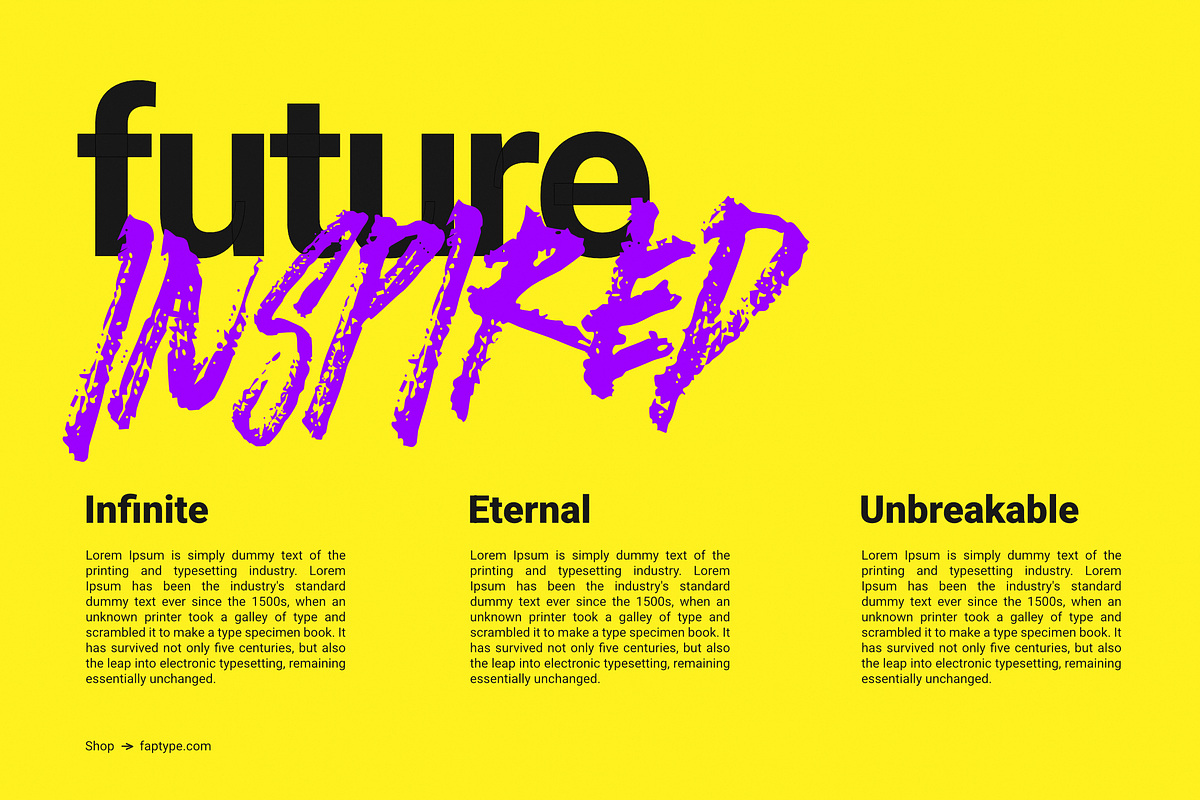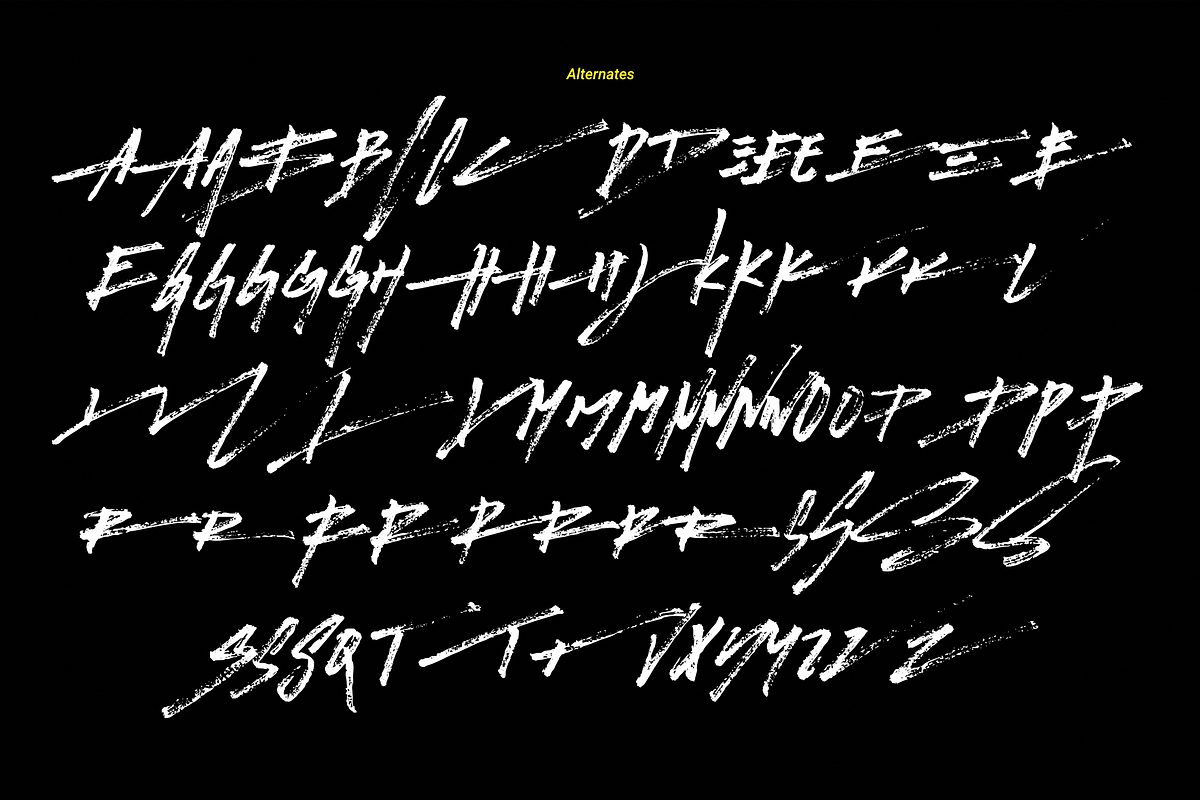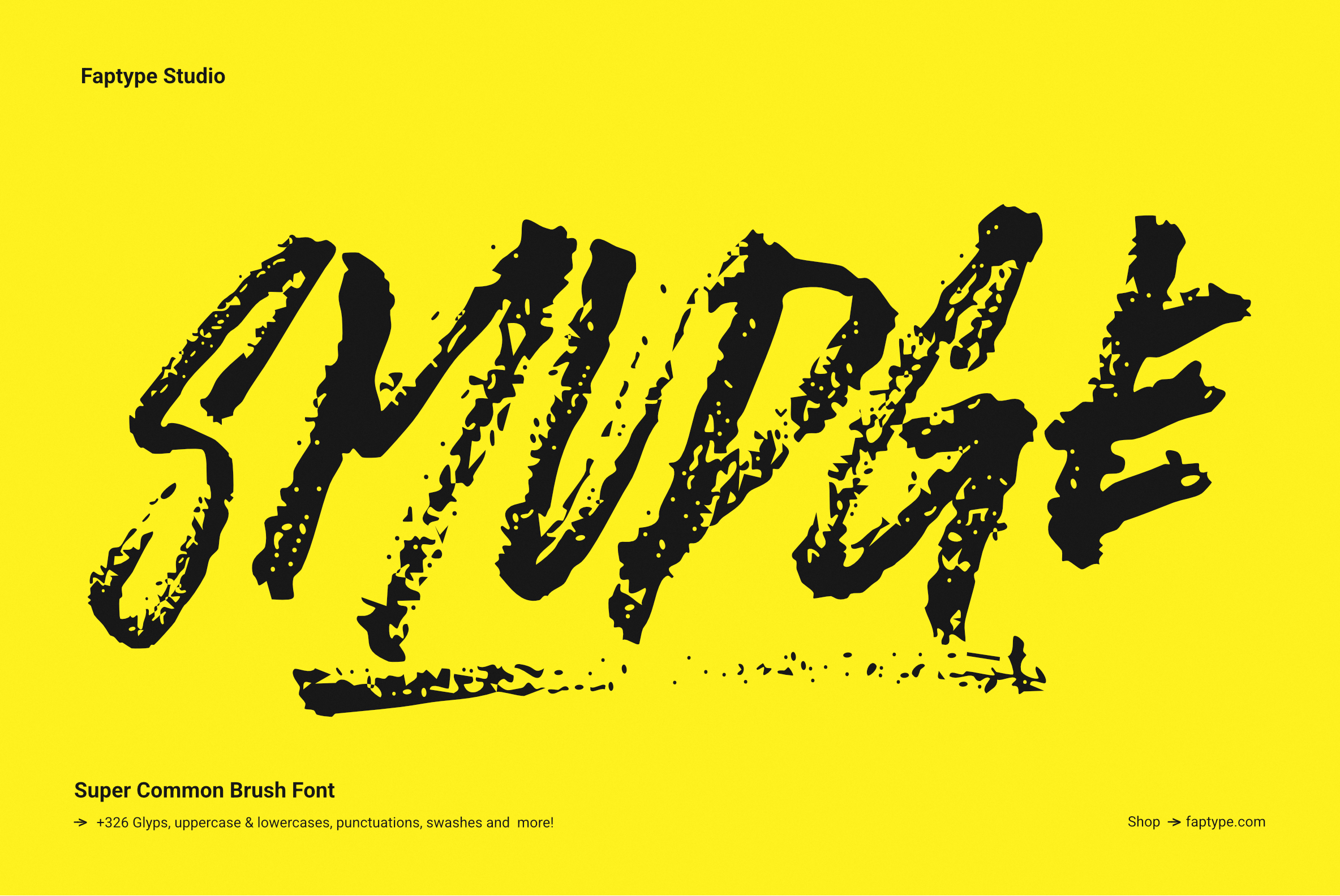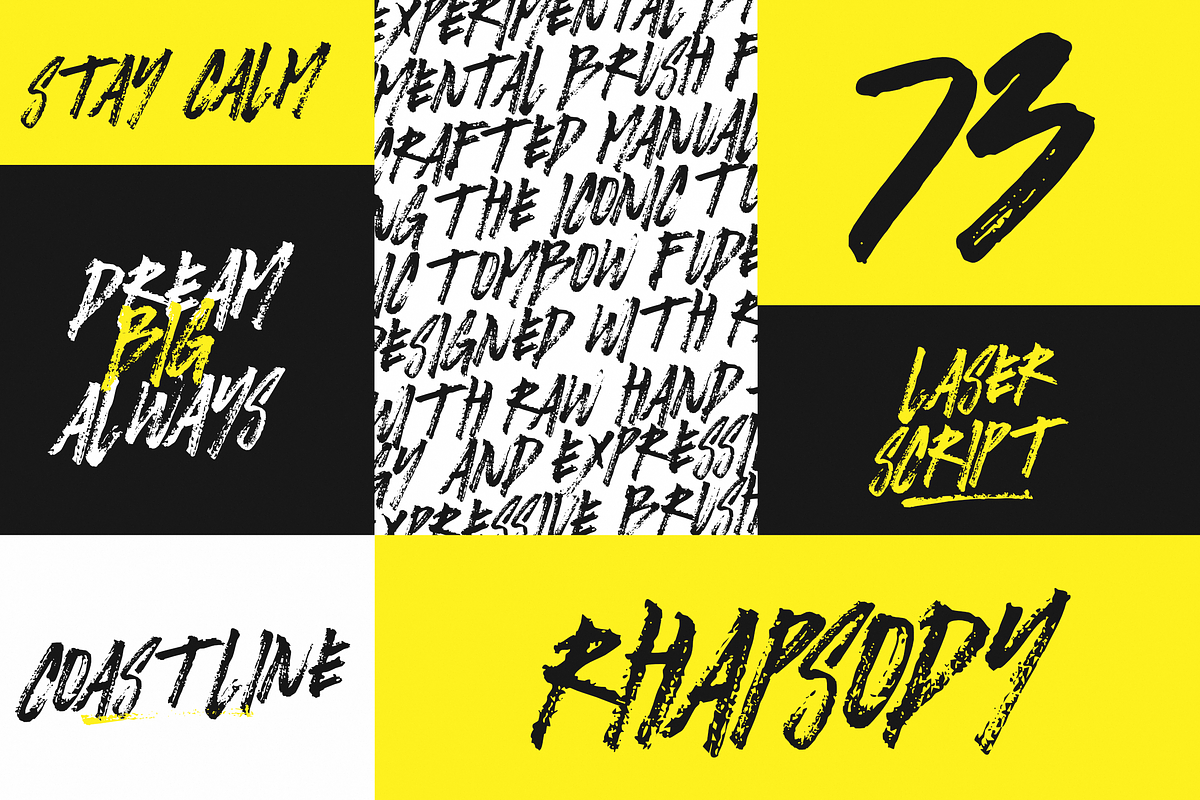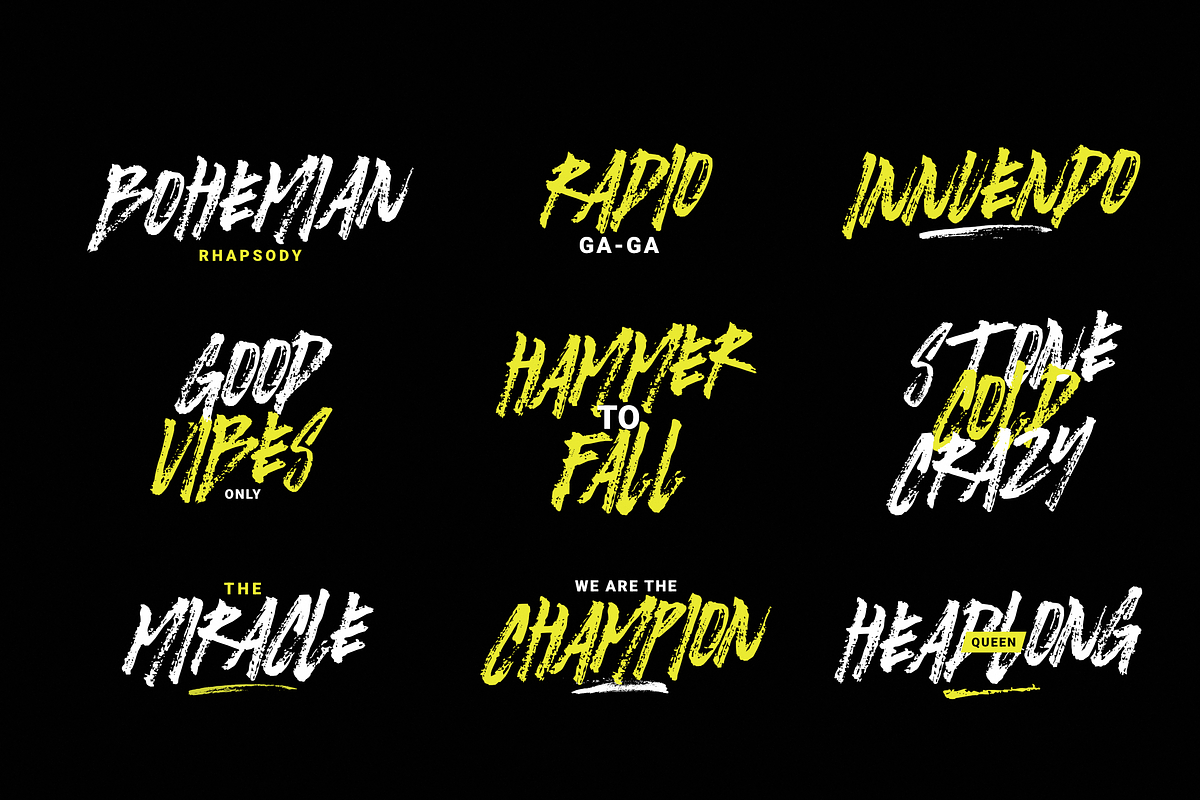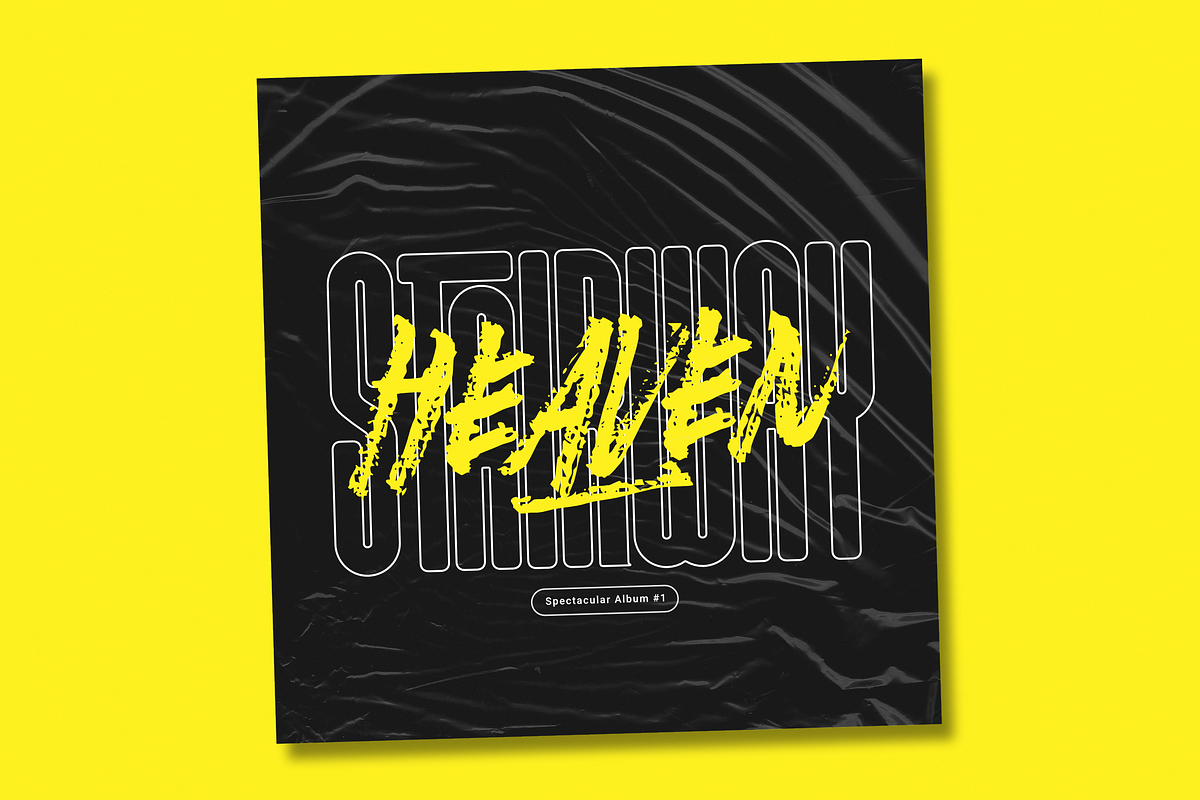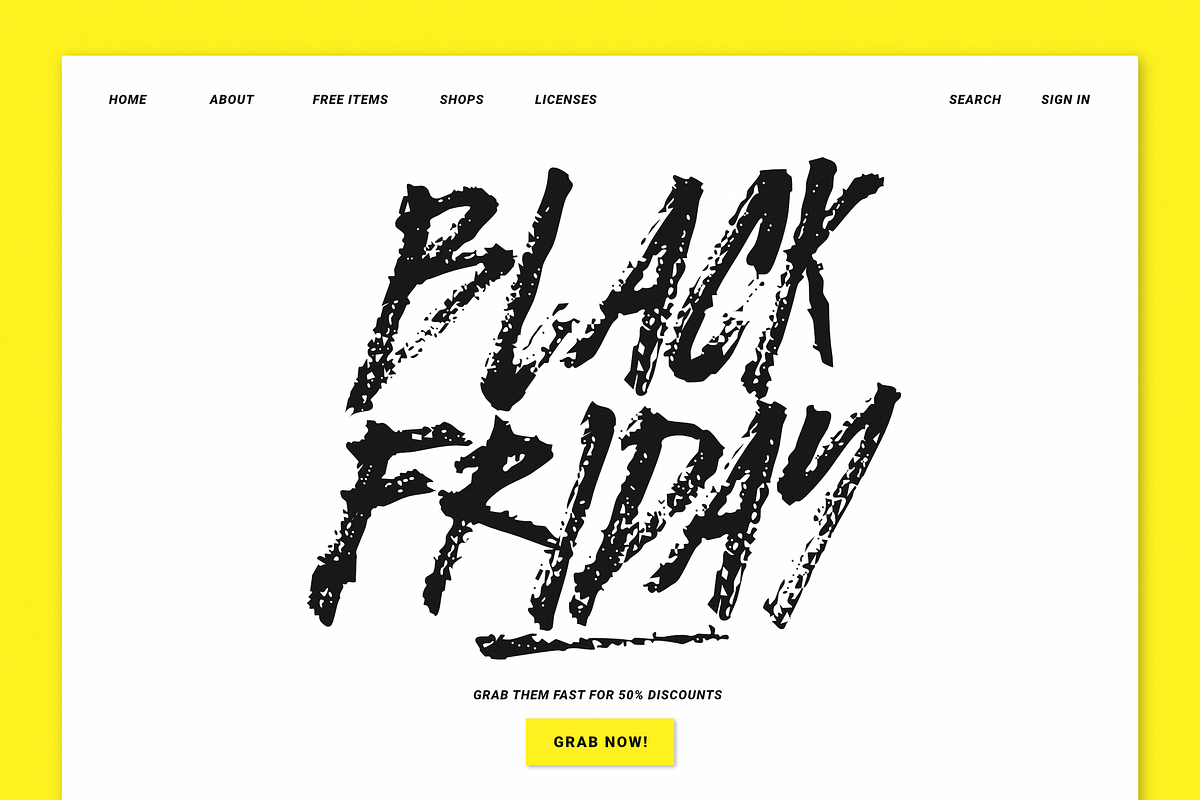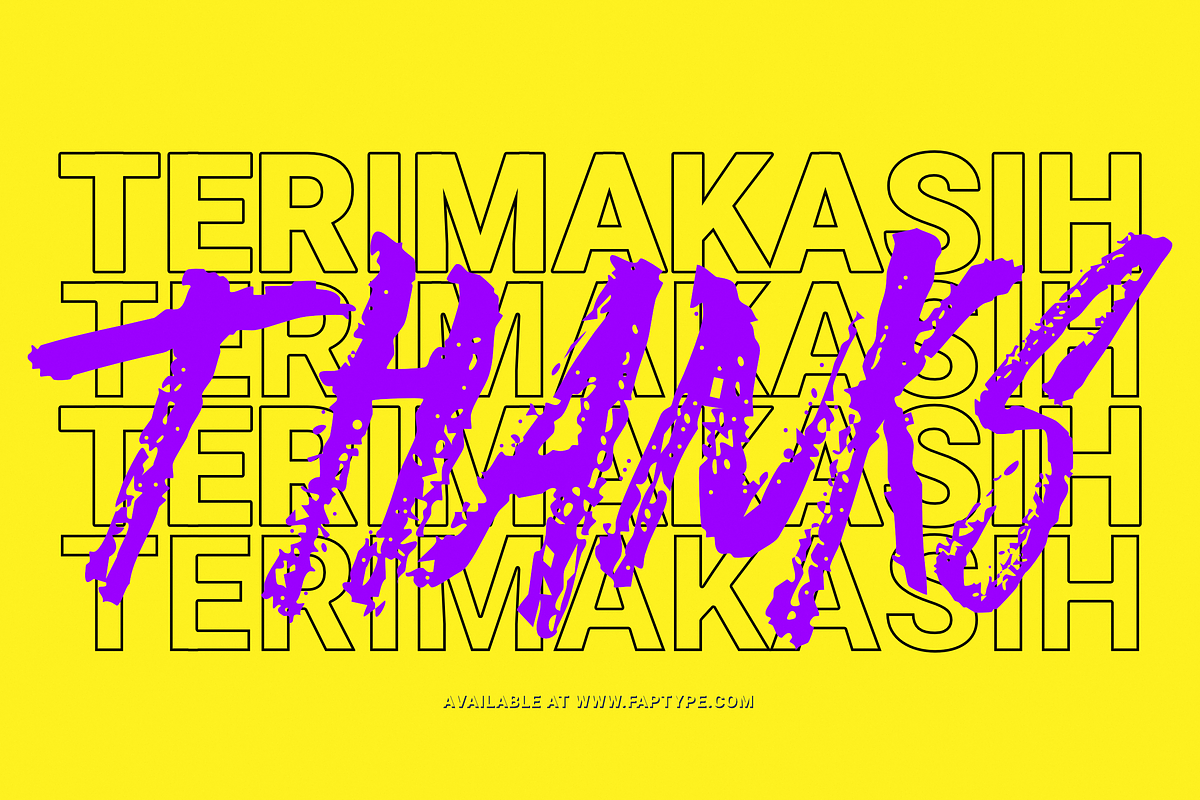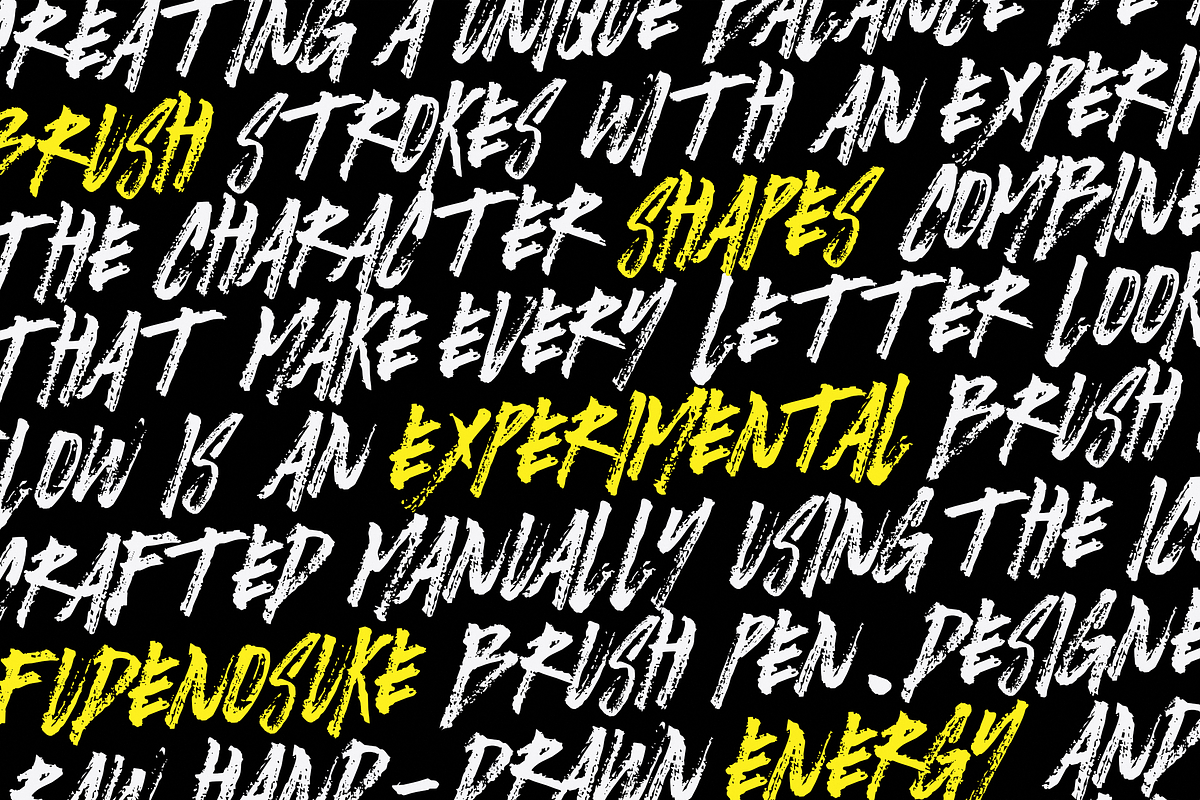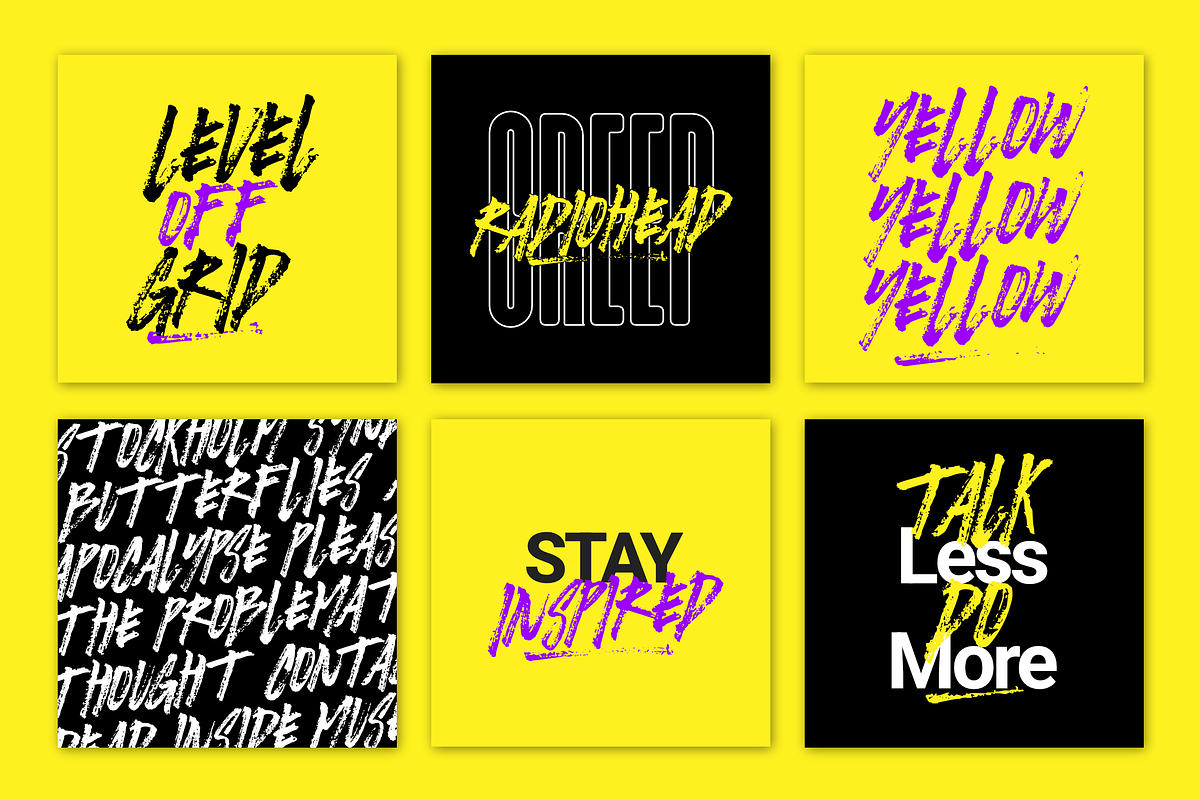
Smudge | Super Common Brush Font
Smudge – Super Common Brush Font is a natural brush typeface created entirely by hand using the Tombow Fudenosuke Brush pen. Inspired by everyday handwriting and familiar brush lettering styles, Smudge delivers a simple, natural, and highly versatile appearance that works across countless creative projects.
Unlike overly decorative brush fonts, Smudge embraces a straightforward and authentic handwritten character. Its casual brush strokes feel comfortable, approachable, and easy to use, making it an excellent choice for designers who need a dependable brush font that fits almost any project.
Created from genuine brush lettering, every character preserves the organic movement of natural hand-drawn strokes while maintaining excellent readability. The font includes a complete set of uppercase letters, numerals, punctuation marks, symbols, multiple alternate characters, and bonus swashes to help you create unique and expressive typography compositions.
Whether you're designing logos, branding materials, social media graphics, packaging, merchandise, posters, or content for digital platforms, Smudge provides a natural brush aesthetic that feels familiar, timeless, and effortlessly stylish.
Why You'll Love Smudge Super Common Brush Font
The strength of Smudge lies in its simplicity.
This isn't a brush font that relies on extreme textures or dramatic effects. Instead, it focuses on delivering a genuine handwritten look that can adapt to a wide variety of creative needs.
With numerous alternates and bonus swashes included, Smudge allows designers to create more natural lettering combinations while maintaining a consistent handcrafted appearance throughout their work.
Its versatile nature makes it suitable for both professional branding projects and casual creative applications.
Smudge Super Common Brush Font
Smudge Super Common Brush Font is designed for creators who appreciate the beauty of simple and natural brush lettering. Its authentic handcrafted appearance, extensive alternates, and bonus swashes make it a versatile addition to any designer's font collection.
Whether used for branding, packaging, social media graphics, merchandise, or display typography, Smudge delivers a familiar brush lettering aesthetic that remains timeless and highly functional.
Features of Smudge Font
Lowercase letters
PUA-encoded characters
OpenType features
326+ glyphs
82+ Aternates Included
Dry brush swashes included